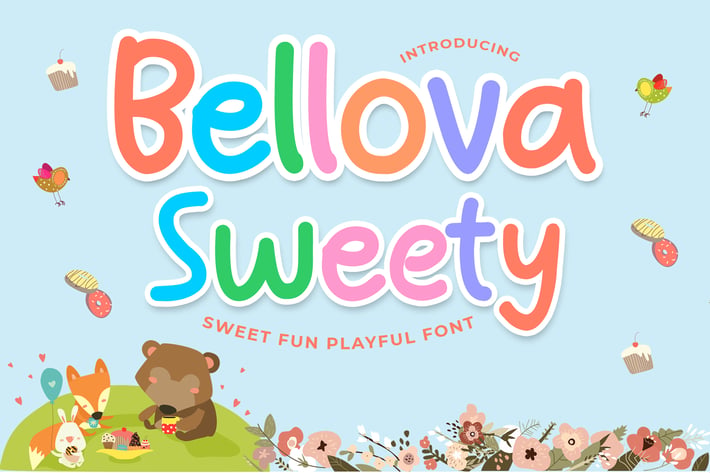
AF Bellova Sweety - Sweety Fun Playful Font
Bellova Sweety - Sweety Fun Playful Font.This handmade font will make your design has a beautiful natural touch for each details. It is perfect for any design project as Invitation,logo, book cover, craft or any design purposes.
+ Multilingual
+ Alternate
+ Ligatures